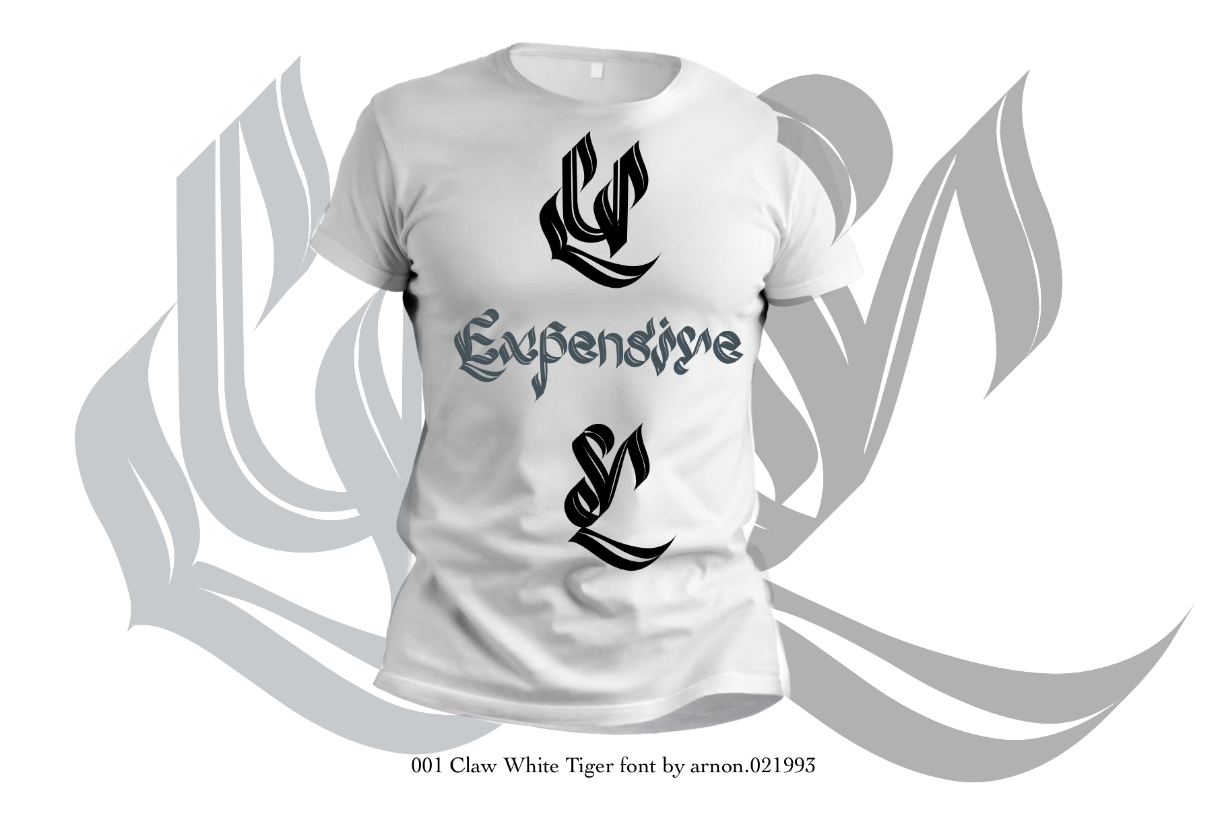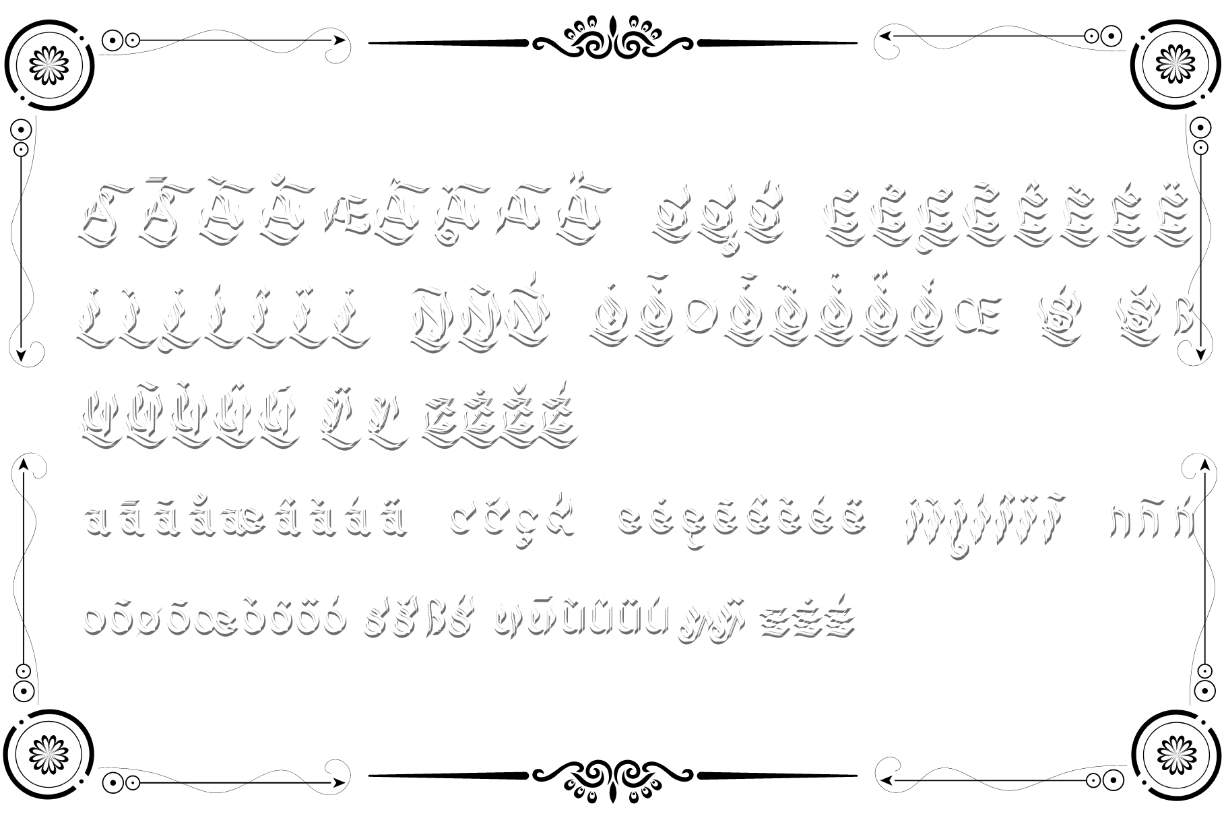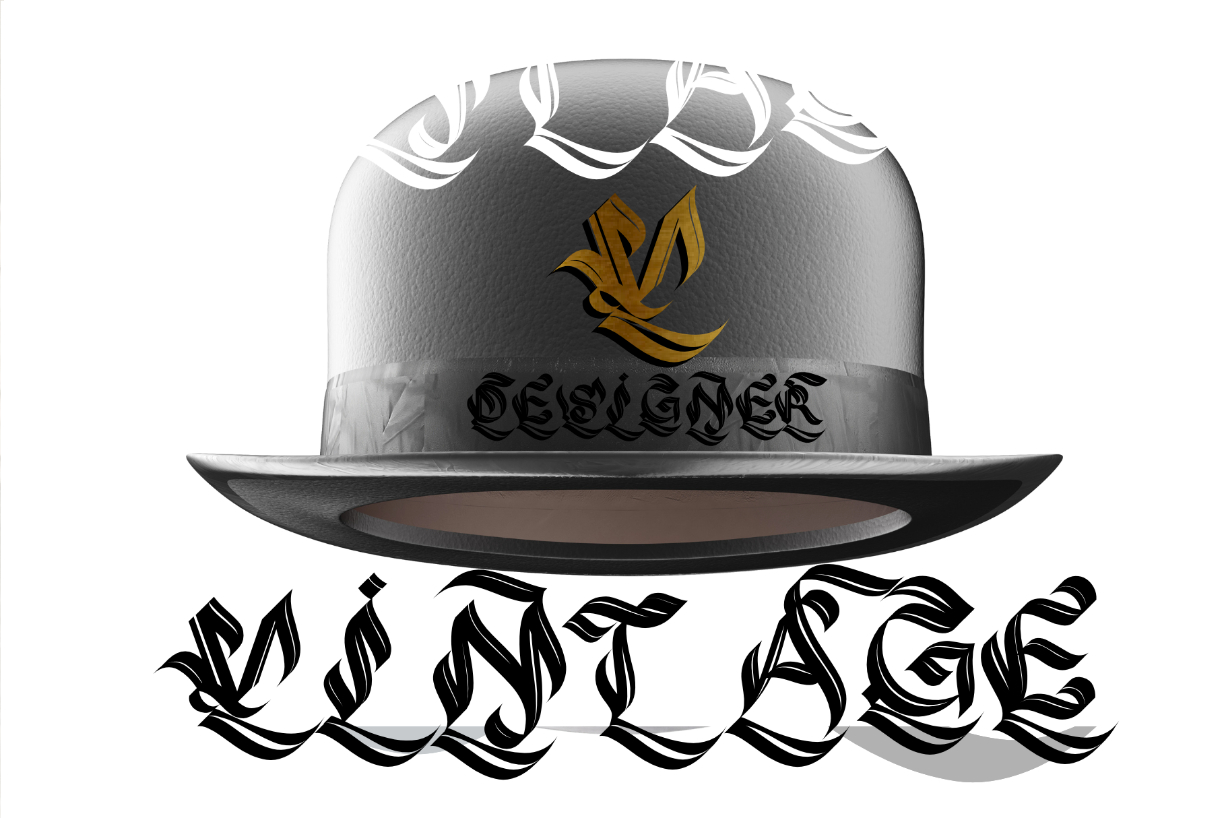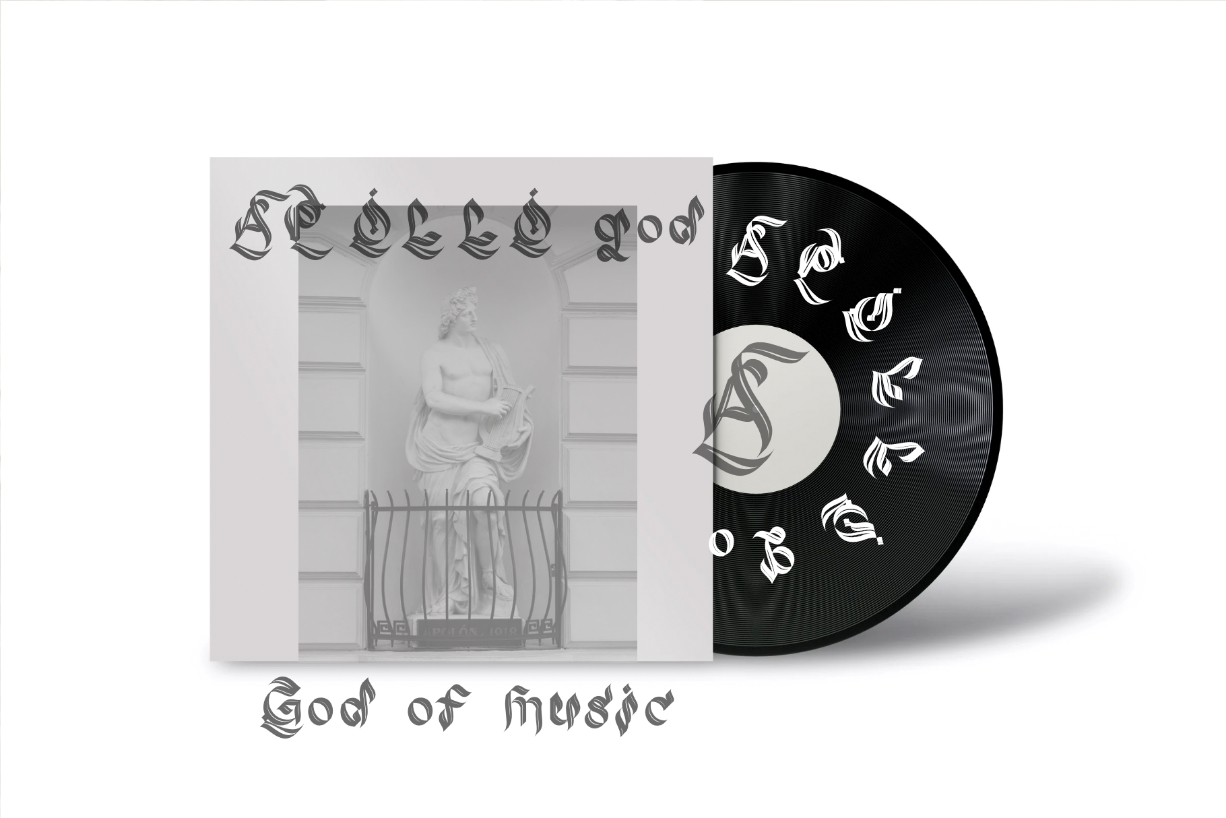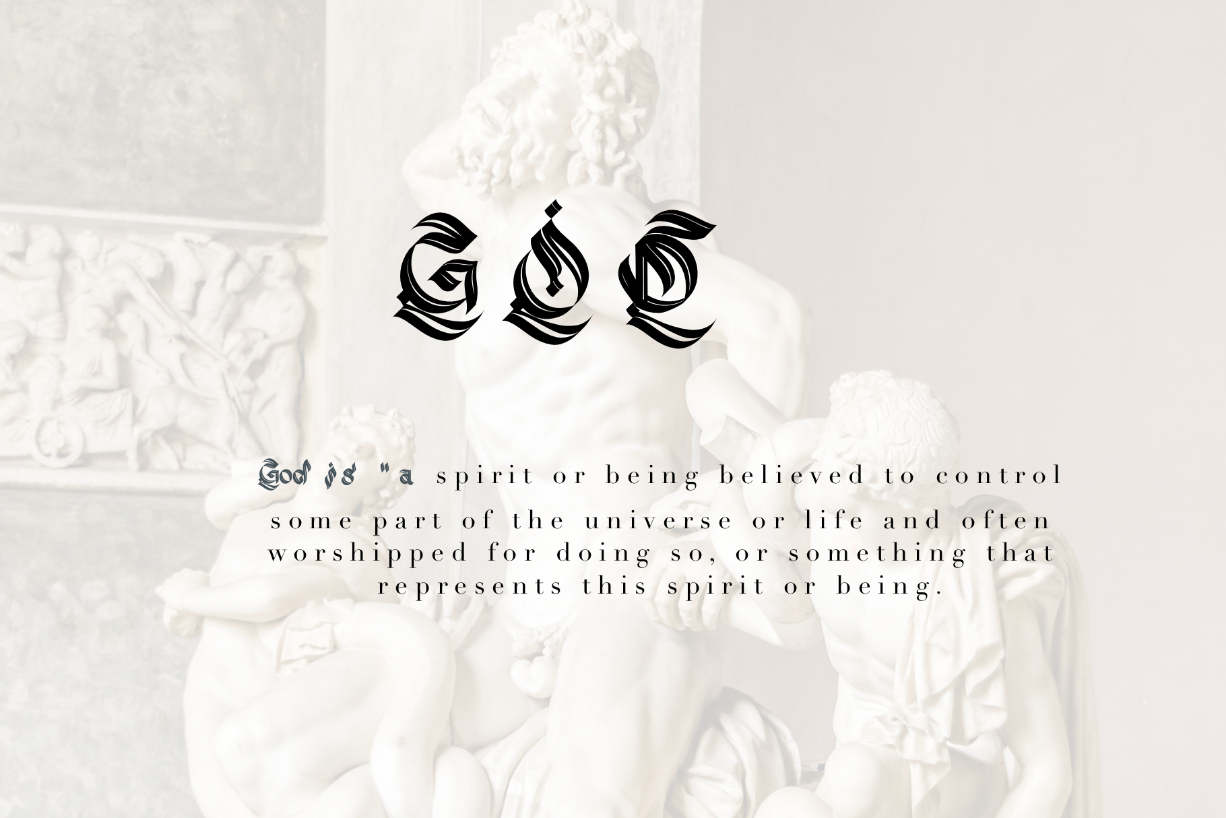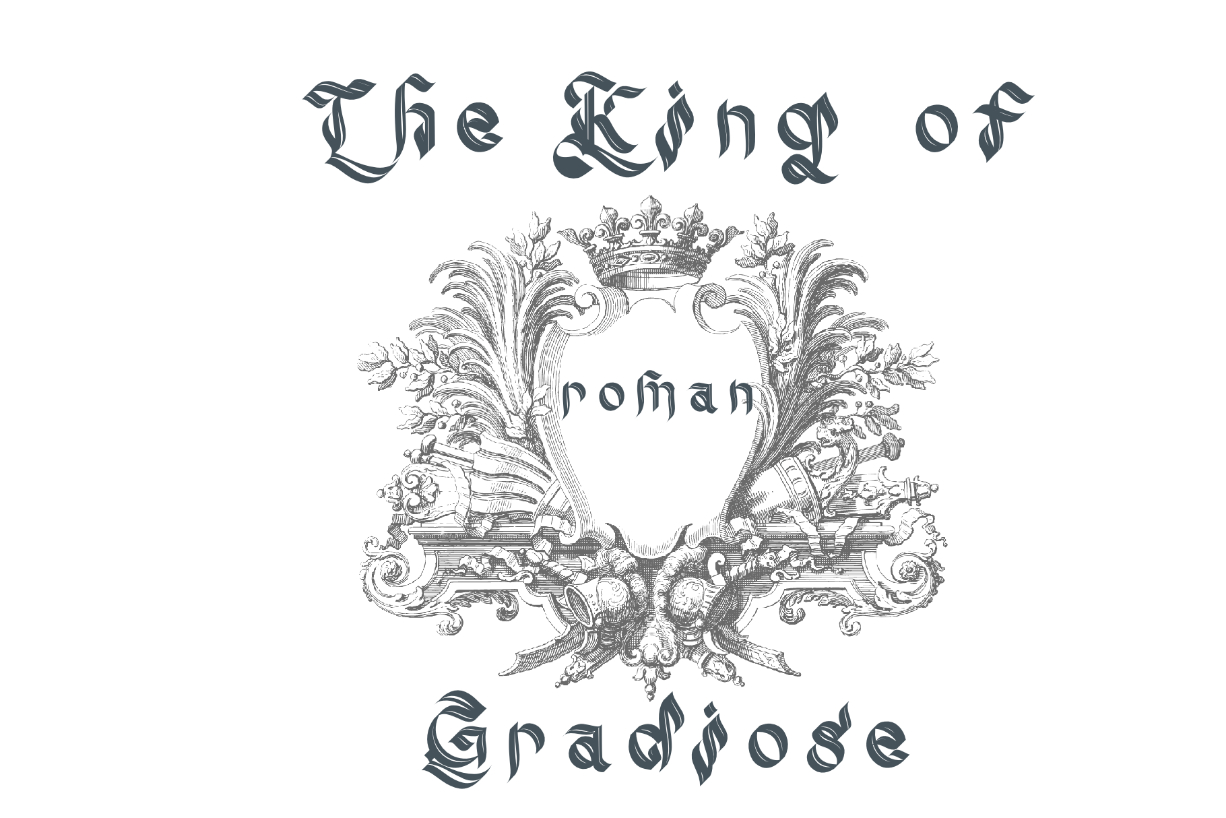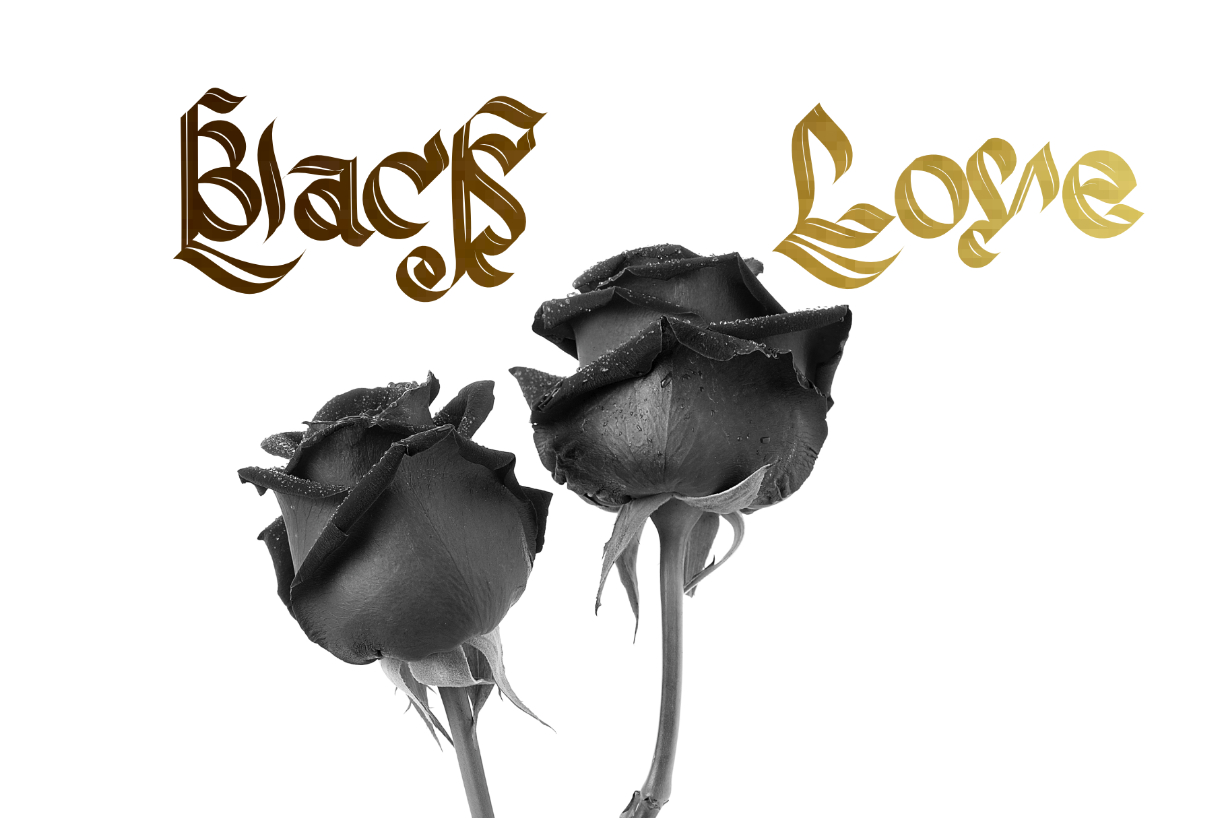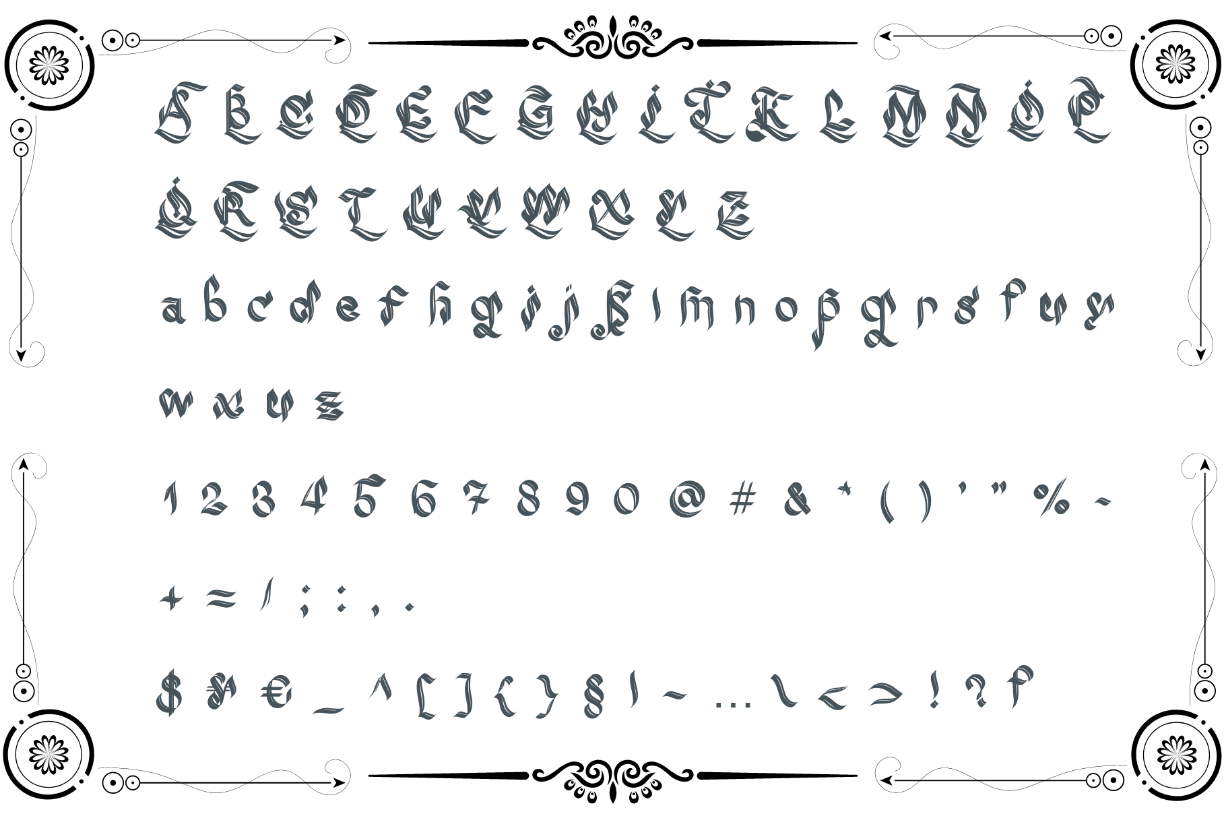
HomeBlackletter FontsClaw White Tiger Font Blackletter Fonts Claw White Tiger Font FacebookTwitterPinterestWhatsApp Claw White Tiger Font Poster 2 Claw White Tiger Font Poster 3 Claw White Tiger Font Poster 4 Claw White Tiger Font Poster 5 Claw White Tiger Font Poster 6 Claw White Tiger Font Poster 7 Claw White Tiger Font Poster 8 Claw White Tiger Font Poster 9 Claw White Tiger Font Poster 10 About Claw White Tiger Font Claw White Tiger is an intricate blackletter font. Add it to your creative projects and enjoy the results! DOWNLOAD NOW People also explored Yuwadee Lf Font Blastiks Signature Font Brasons Risool Font Mad World Font Abigail Font Apricot Sweet Font Dellyma Font Baby Gladies Wedding Minimalist Font 196 0 TagsClaw White Tiger Font Previous articleOase Desert FontNext articlePamors Font LEAVE A REPLY Cancel reply Comment: Please enter your comment! Name:* Please enter your name here Email:* You have entered an incorrect email address! Please enter your email address here Website: Save my name, email, and website in this browser for the next time I comment. Personal Use Free Gaboed Personal Use Free Read more about this font Built Tilting Personal Use Free Read more about this font Bakk Trieng Personal Use Free Read more about this font Xplor Personal Use Free Read more about this font BLOG Best Fonts for YouTube Videos: Make Your Thumbnails Stand Out Best Fonts for YouTube Videos: Make Your Thumbnails Stand Out Choosing the right font can make a massive difference in how your YouTube videos perform.... Exploring Font Trends Best Fonts for T-Shirt Design – Top 2025 Picks Top 7 Google Fonts Alternatives for Faster and Privacy-Friendly Web Design (2025)